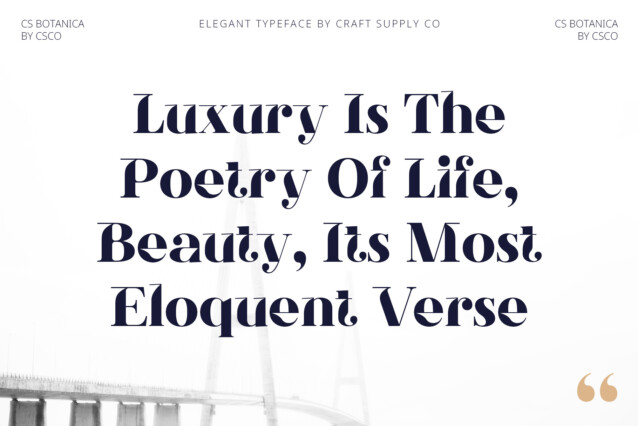
CS Botanica Font
CS Botanica Font is a refined Didone serif typeface that embodies elegance and sophistication. Featuring high contrast between thick and thin strokes, this font delivers a striking visual impact, ideal for luxury designs that require both classic beauty and contemporary style.